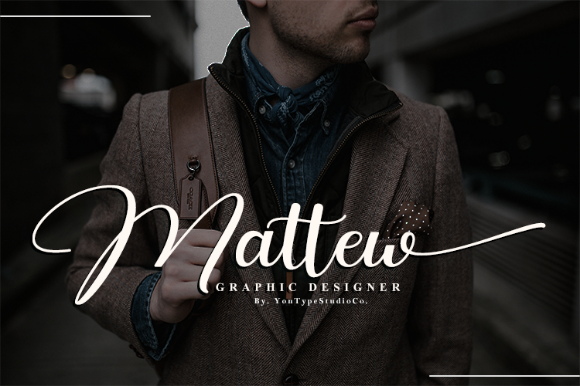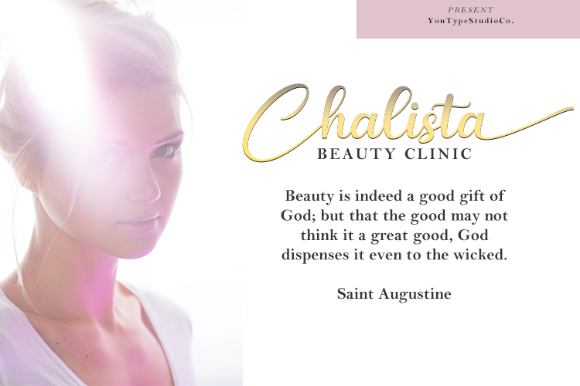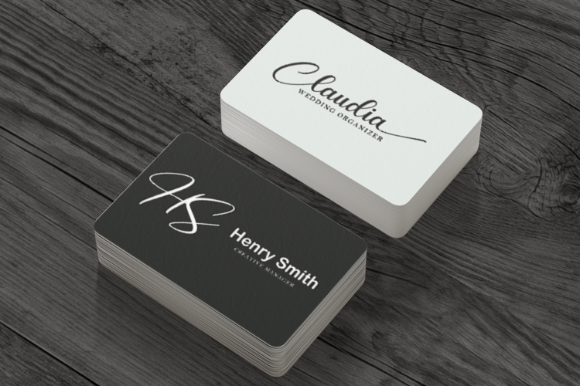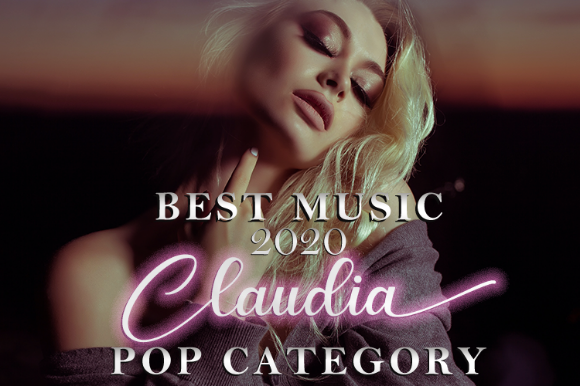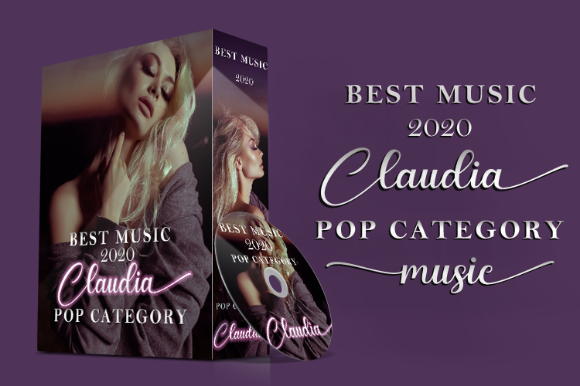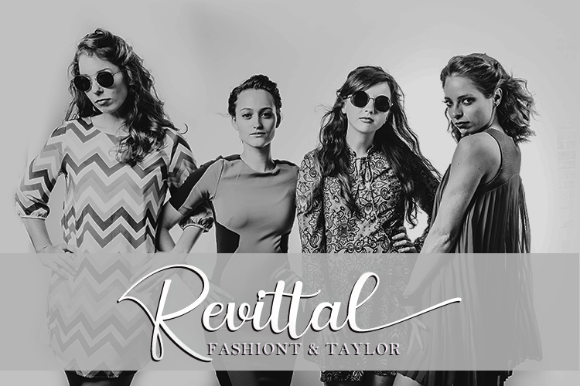
Introduction to Battur Font
Battur is an elegant and flowing handwritten font.
It is PUA encoded which means you can access all of the glyphs and swashes with ease It features a varying baseline, smooth lines, gorgeous glyphs and stunning alternates.
Key Features of Battur Font